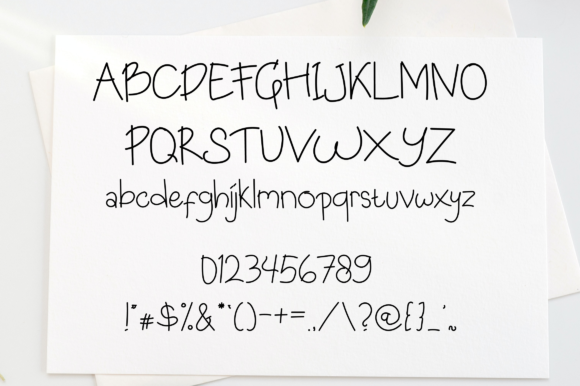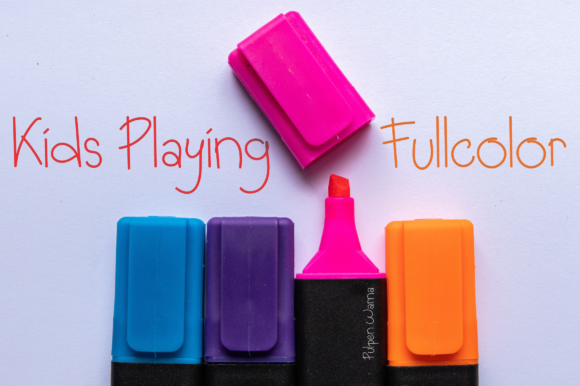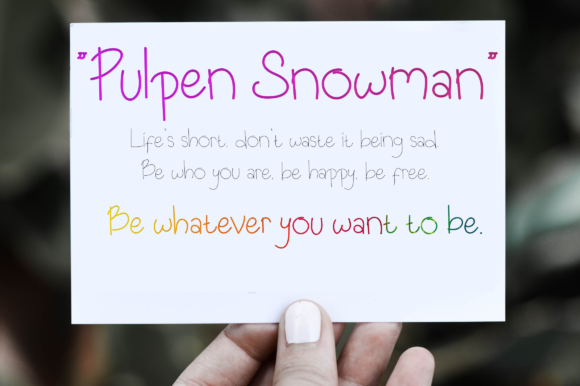
About Pulpen Snowman Font
“Pulpen Snowman” emerges with an air of joy and childlike wonder, a font crafted with a playful spirit. With its fun and entertaining essence, “Pulpen Snowman” captures the whimsical nature of childhood and becomes a perfect fit for a variety of applications. Imagine it as a brush that paints a world of delight and excitement, adding a touch of enchantment to branding small children’s products, posters, educational games, comics, and beyond.
Visualize “Pulpen Snowman” as a burst of laughter on paper, each letter infused with a sense of fun and entertainment. Its simplicity and thin script enhance your projects, transforming them into creations that resonate with the hearts of young and old alike. As you infuse this font into your designs, you embark on a journey where your concepts evolve into engaging visual narratives.
This font becomes a bridge to childhood nostalgia, transporting us to a world where innocence and imagination reign supreme. From creating charming stationery art to crafting engaging social media posts, “Pulpen Snowman” stands as a versatile tool that adds a touch of lightheartedness to every project it graces.
In a design realm where emotions are key and creativity knows no bounds, “Pulpen Snowman” becomes your medium for crafting designs that bring smiles and laughter. Allow its playful strokes to be the artistic threads that weave through your creations, infusing them with a sense of joy and delight. Embrace the childlike wonder of “Pulpen Snowman” and watch as it transforms your projects into heartwarming showcases of artistic brilliance, inviting all who engage with them to experience the magic it imparts.